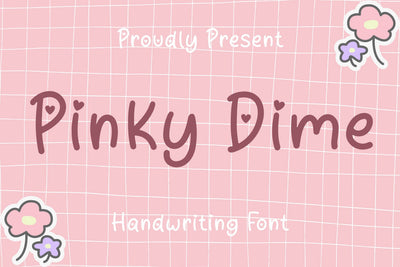
Pinky Dime Font
Pinky Dime is a charming handwriting font that features cute heart decorations throughout. Its playful and sweet appearance make it a great choice for a variety of designs, such as greeting cards, invitations, and social media graphics. Its handwritten style adds a personal touch and the hearts add a touch of love and warmth. Overall, Pinky Dime is a delightful font that is sure to bring a smile to anyone's face.